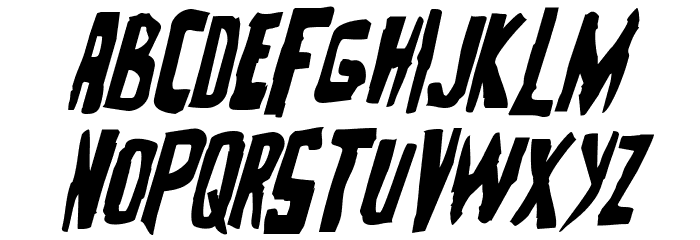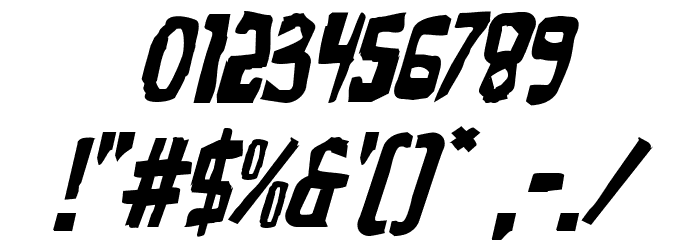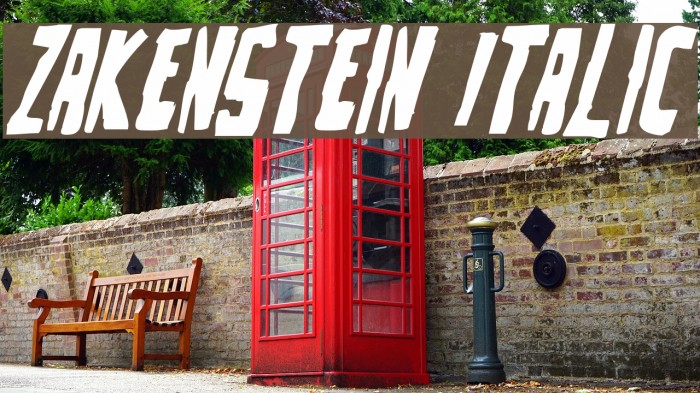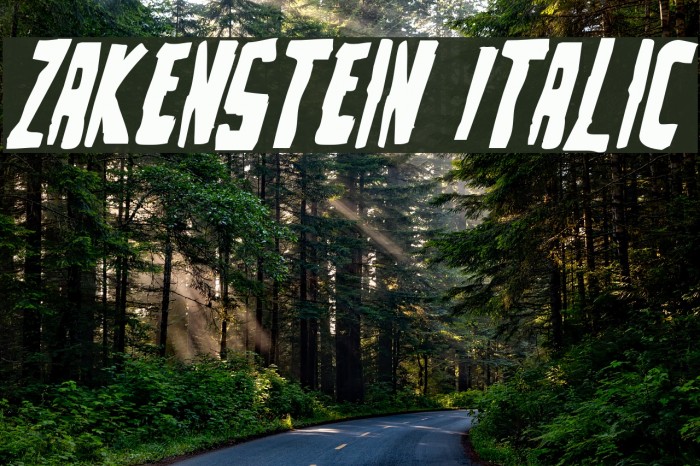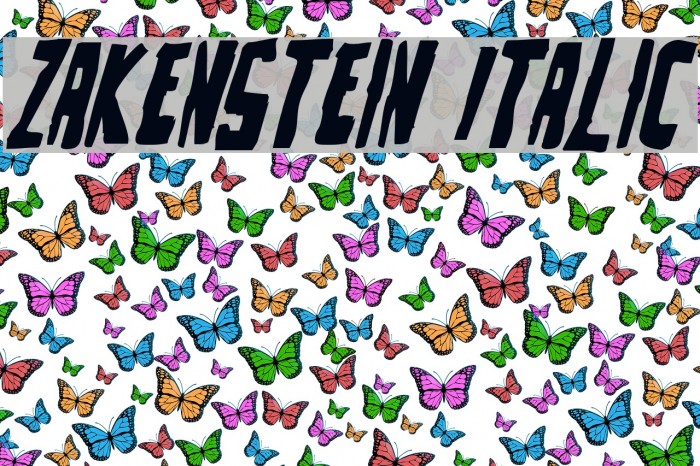
Zakenstein Italic Font
This font features a bold and dynamic style with a distinct italic slant, giving it a sense of movement and energy. The characters are thick and robust, with sharp, angular edges that contribute to a modern and edgy appearance. The uppercase and lowercase letters maintain a consistent style, with the uppercase being particularly prominent and eye-catching. The numerals are equally bold, ensuring they stand out in any context. Special characters are included, matching the overall aesthetic with their bold and angular design. This font is ideal for projects that require a strong visual impact.
A bold, italic font with sharp, angular edges and a dynamic style.
- Font: Zakenstein Italic
- Proposed Projects: Perfect for posters, branding, and any design needing a bold, energetic typeface.